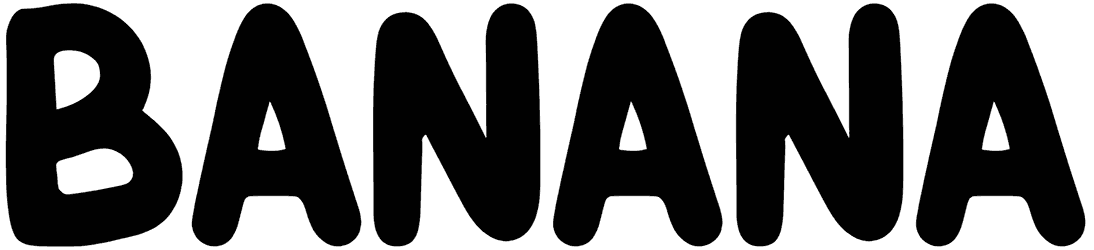
Banana Font
Because of the soft design of its characters, the Banana font gives a modern and relatable look to your texts. All the characters in this cartoon font have a bold style with a bubbly and round edge design.
This font can be used for any channel title, documentary titles, and cartoonish flyers, and they are also popular in ice cream shops and children’s playgrounds. The lowercase letters in this collection are missing.